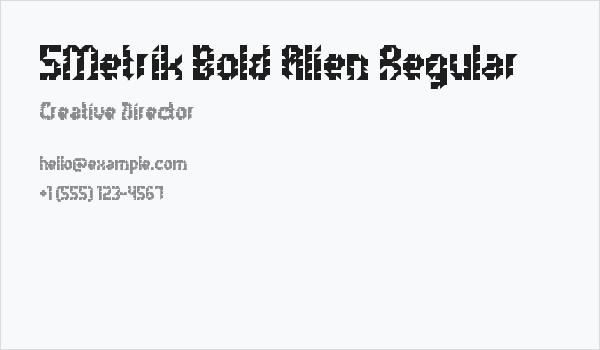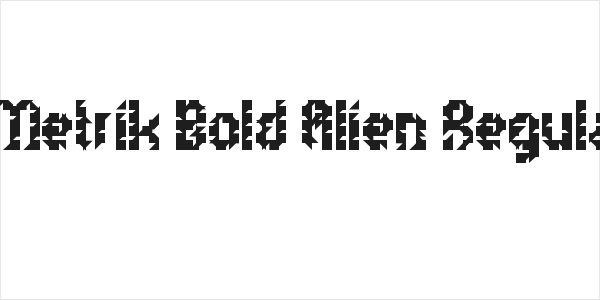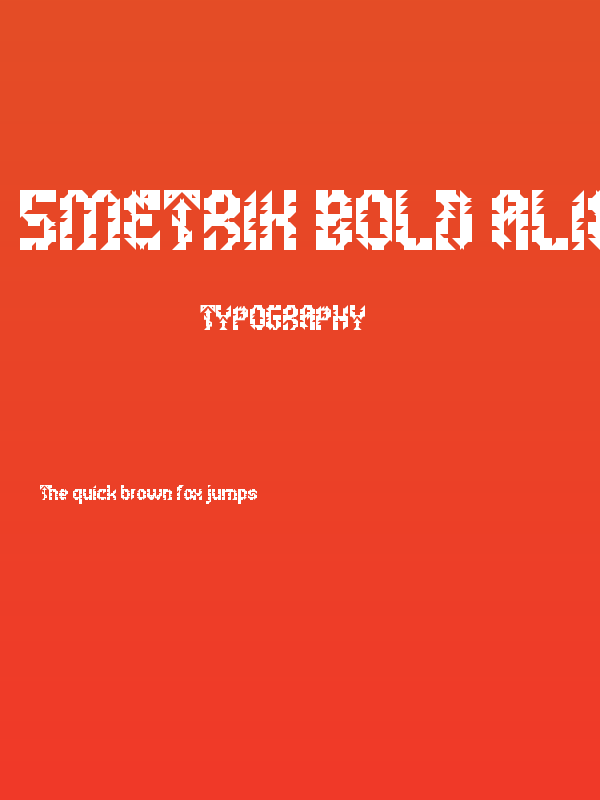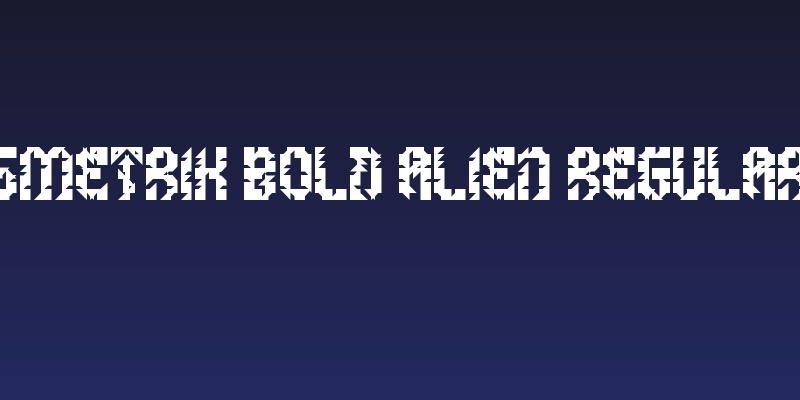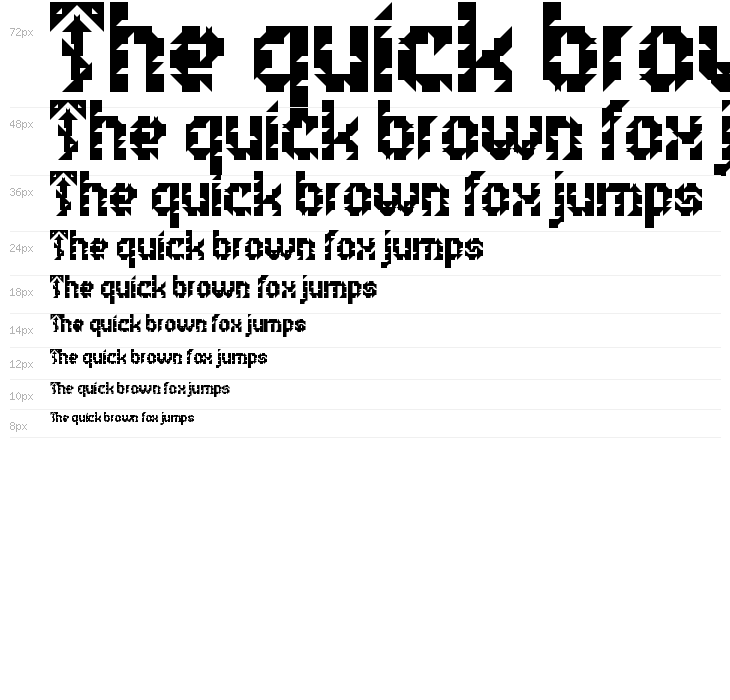
5Metrik Bold Alien Regular Font
5Metrik Bold Alien Regular Description
This font features a bold, geometric design with sharp, angular edges and a futuristic aesthetic. The characters are constructed with a series of jagged, triangular shapes that give it a distinctive, alien-like appearance. The uppercase and lowercase letters maintain a consistent style, with the lowercase being slightly more compact. Numbers and special characters follow the same angular theme, ensuring uniformity across all glyphs. The font's unique style makes it stand out, ideal for projects that require a modern and edgy look.
| Overall Style | Futuristic, Edgy |
| Proposed Projects | Ideal for sci-fi themed projects, video game titles, movie posters, and branding that requires a modern, edgy look. |